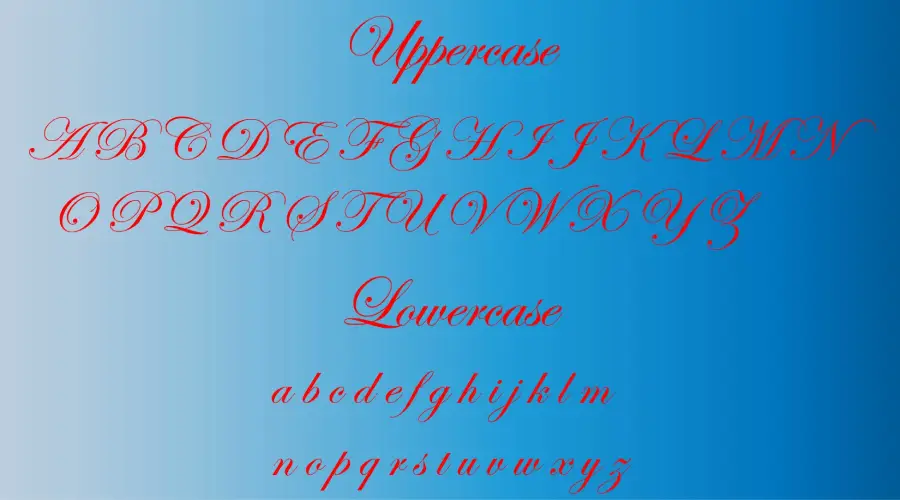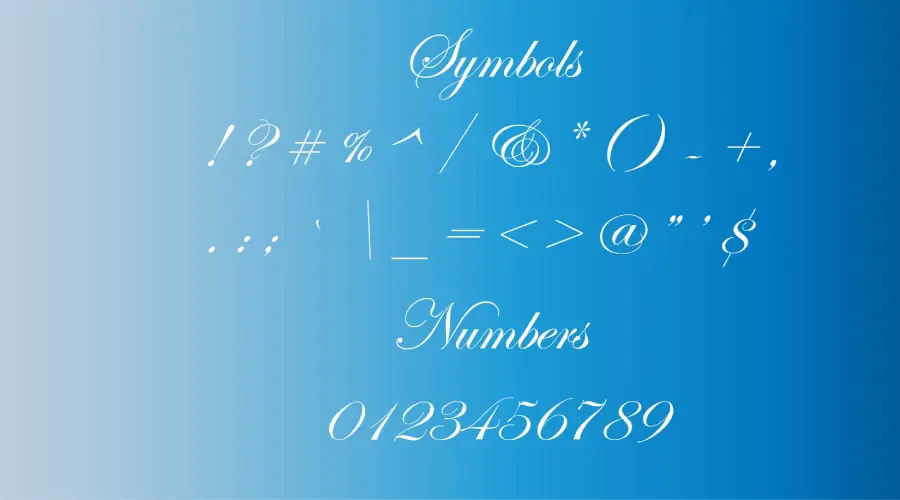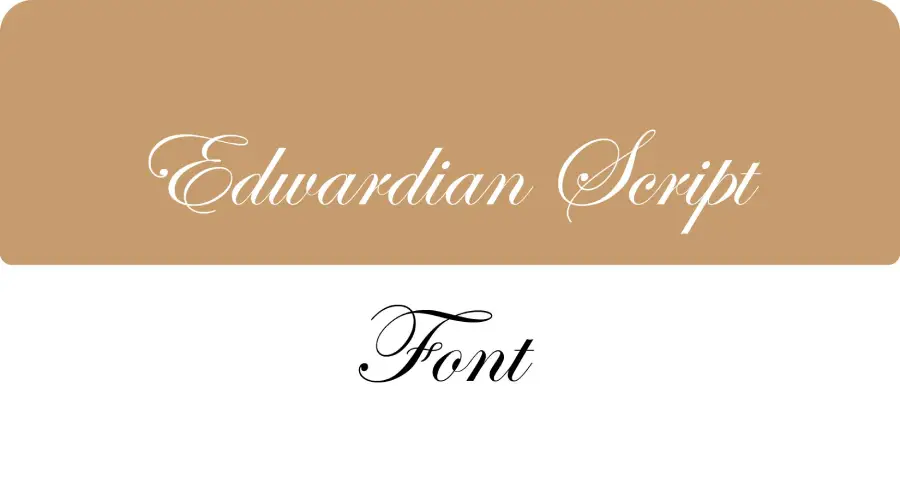
Edwardian Script Font, or Edwardian Script ITC, is a hand-drawn calligraphy typeface. Edward Benguiat, in 1994, designed and published this font for the International Typeface Corporation (ITC). Designer Edward Benguiat says it was drawn and redrawn until the connective elements of the letters were perfected to create the look of true handwriting.
Writing with a steel-pointed pen, an instrument known for its flexibility, heavily influenced its appearance. This pen produces contrasting strokes when pressure is applied, giving the font unique and delicate characteristics. It has 246 characters and 243 glyphs. It also supports Latin and Greek. ITC, aka International Typeface Corporation, holds the copyright to this font.
How Effective is the Font?
ITC Edwardian Script font is a beautiful typeface with convenient functionality. This font is highly readable and can adapt to anything. It suits wedding invitations, titles, banners, posters, and more. You can also use it for headlines, titles, and more. Its graceful and flowing curves, ornate swashes, and delicate loops will make your design stand out.
Edwardian Script font is a timeless calligraphy font. Whether you’re a designer, typographer, or simply someone who appreciates font beauty, the Edwardian Script is a must-have in your collection.